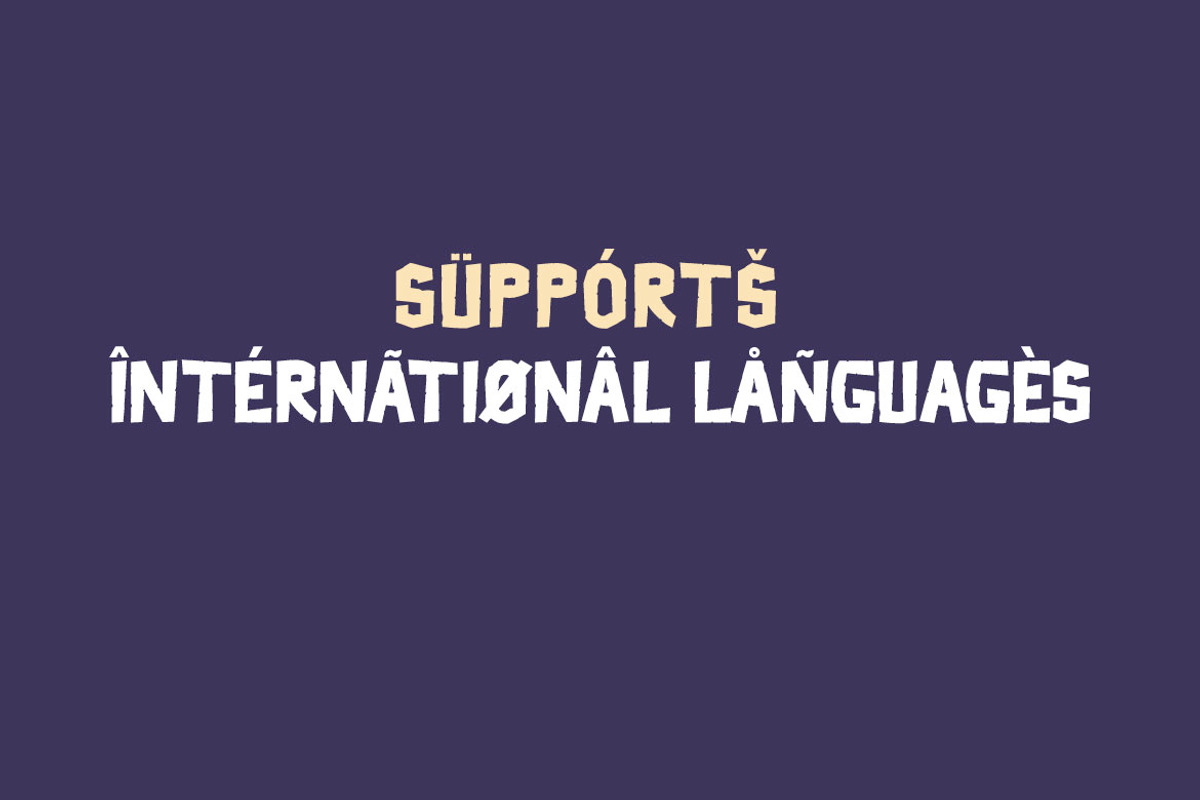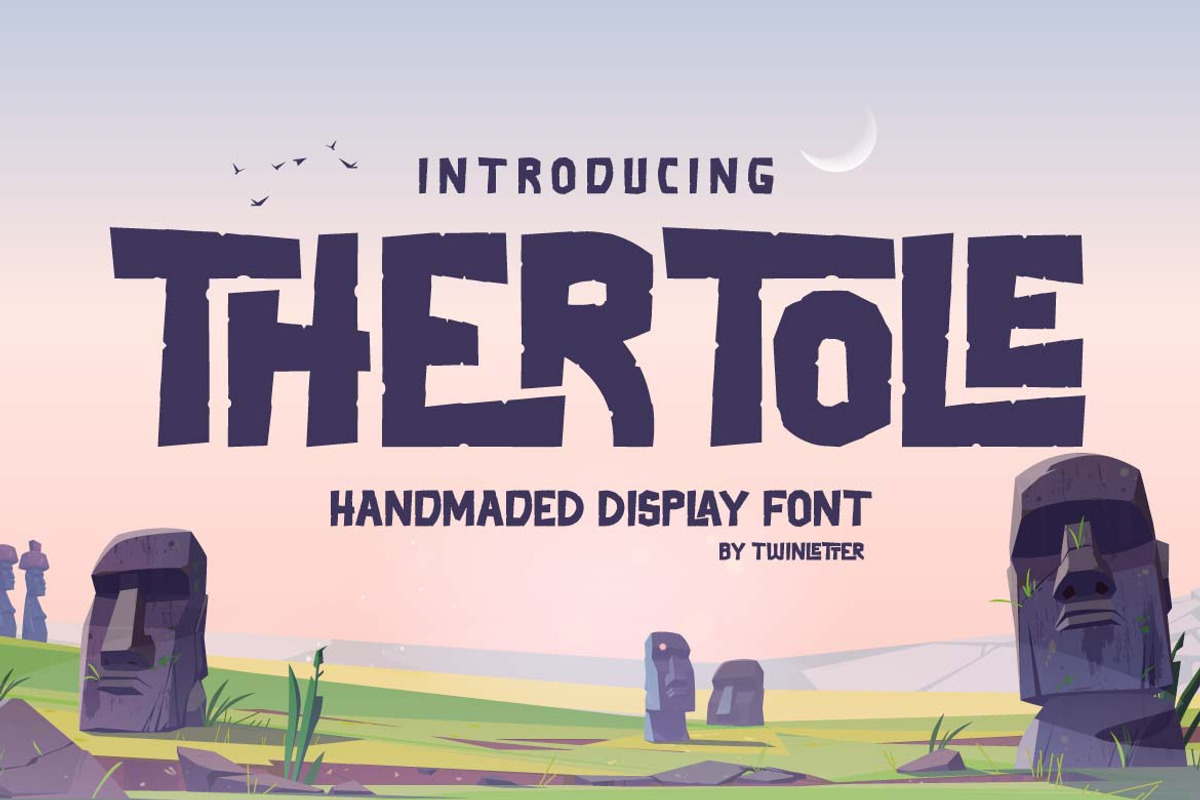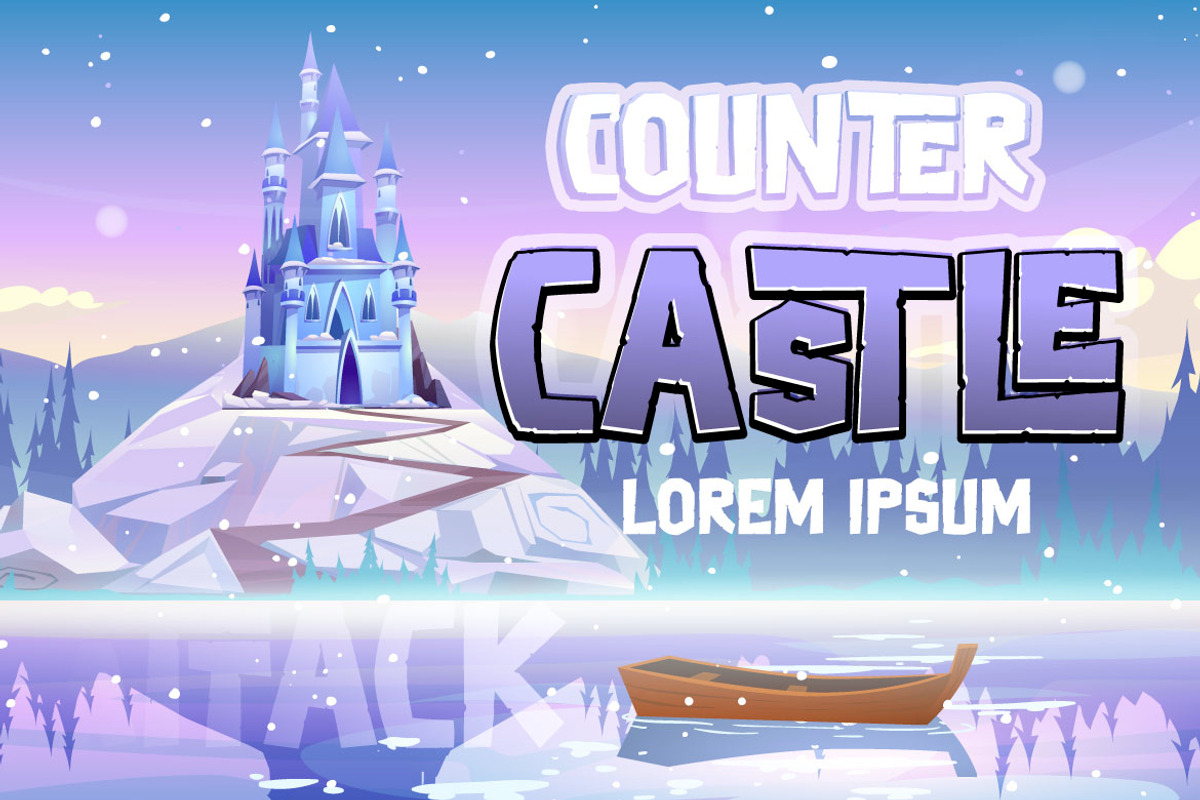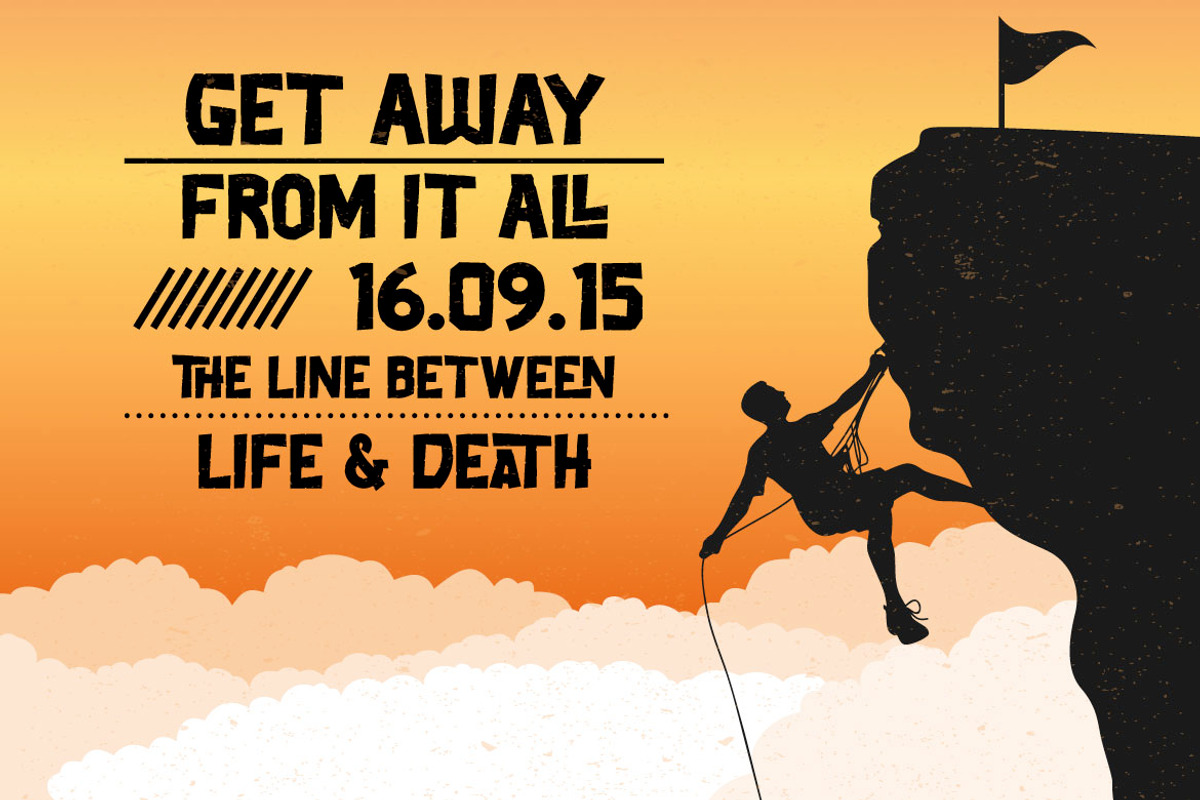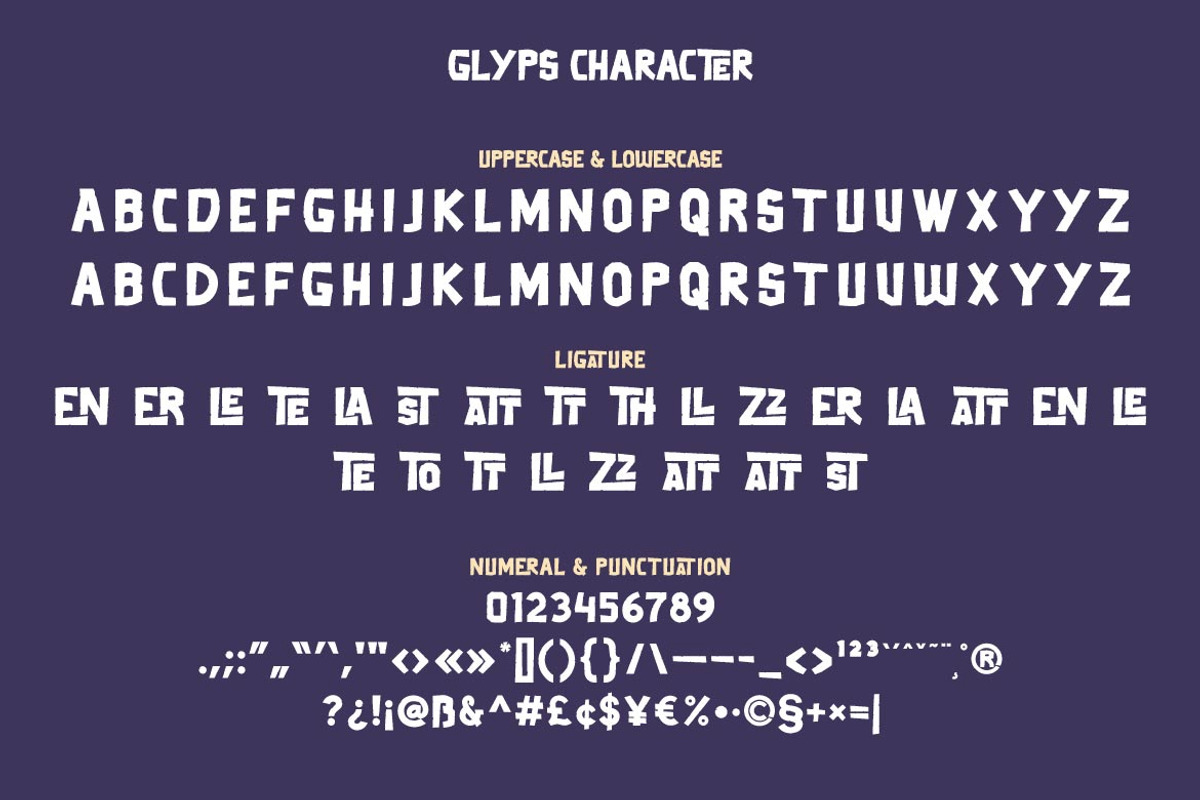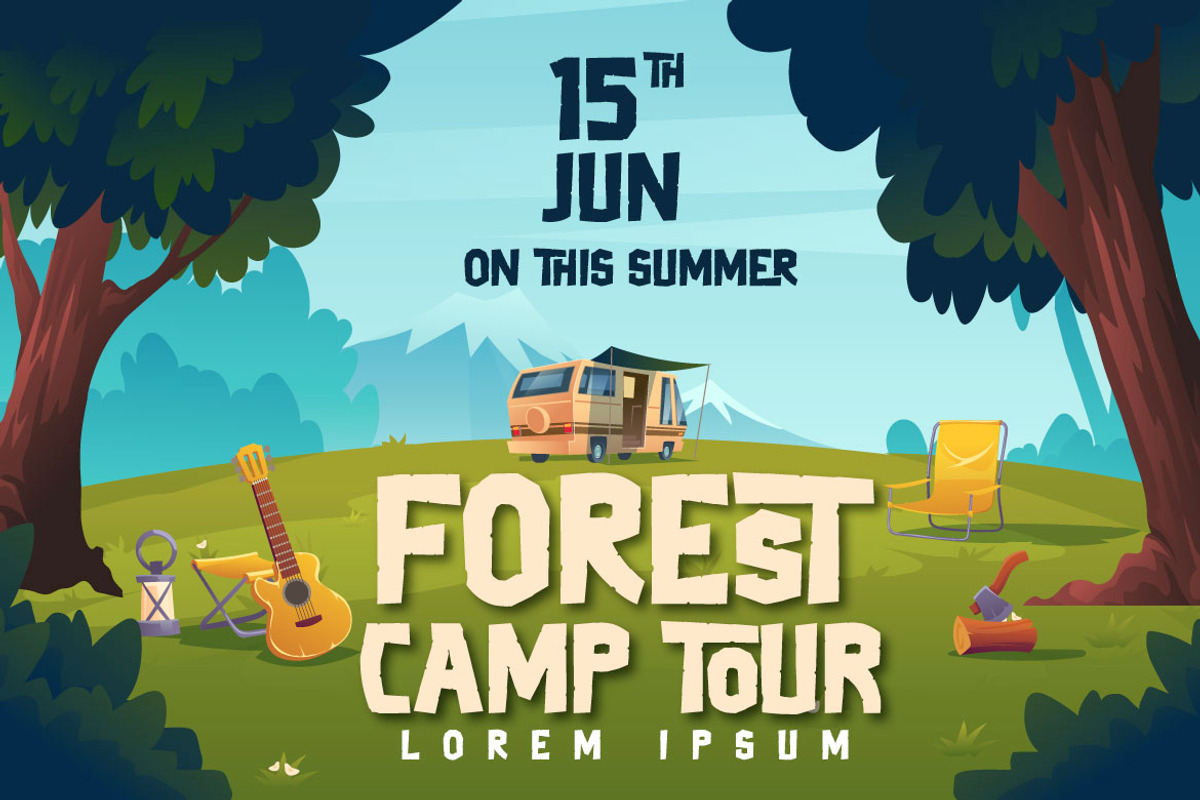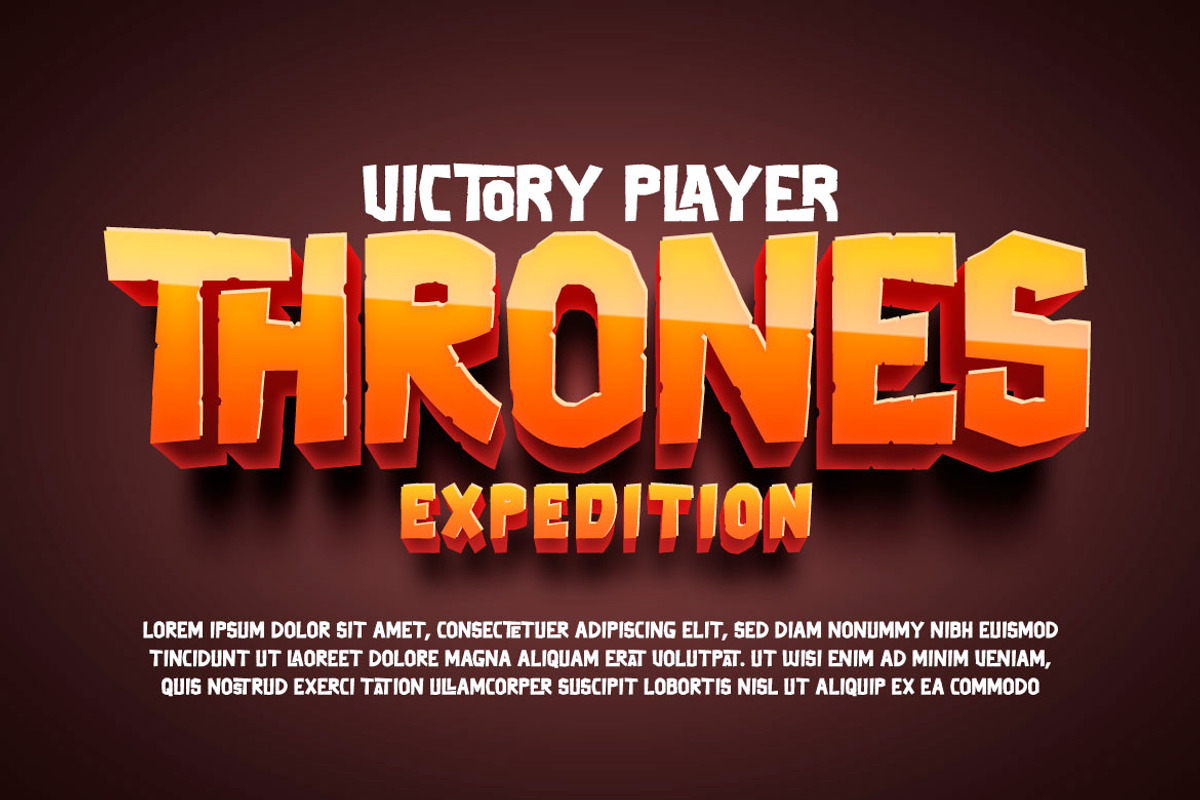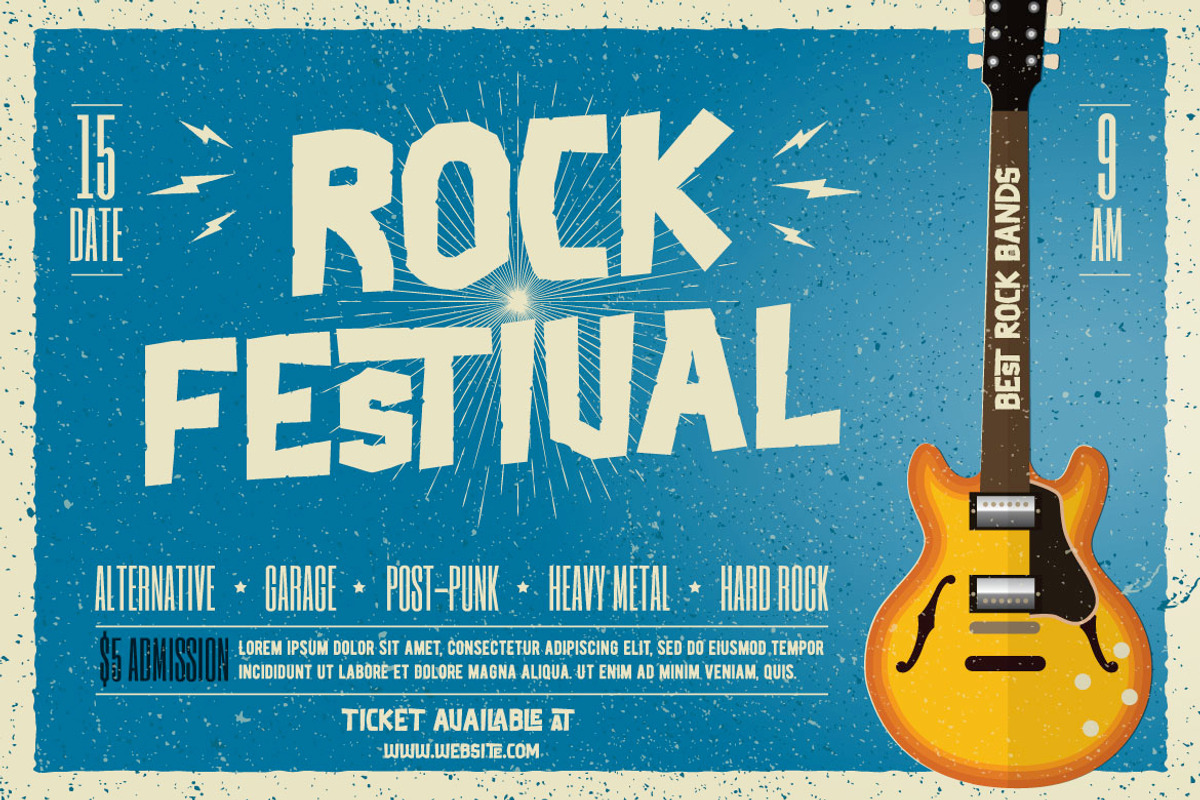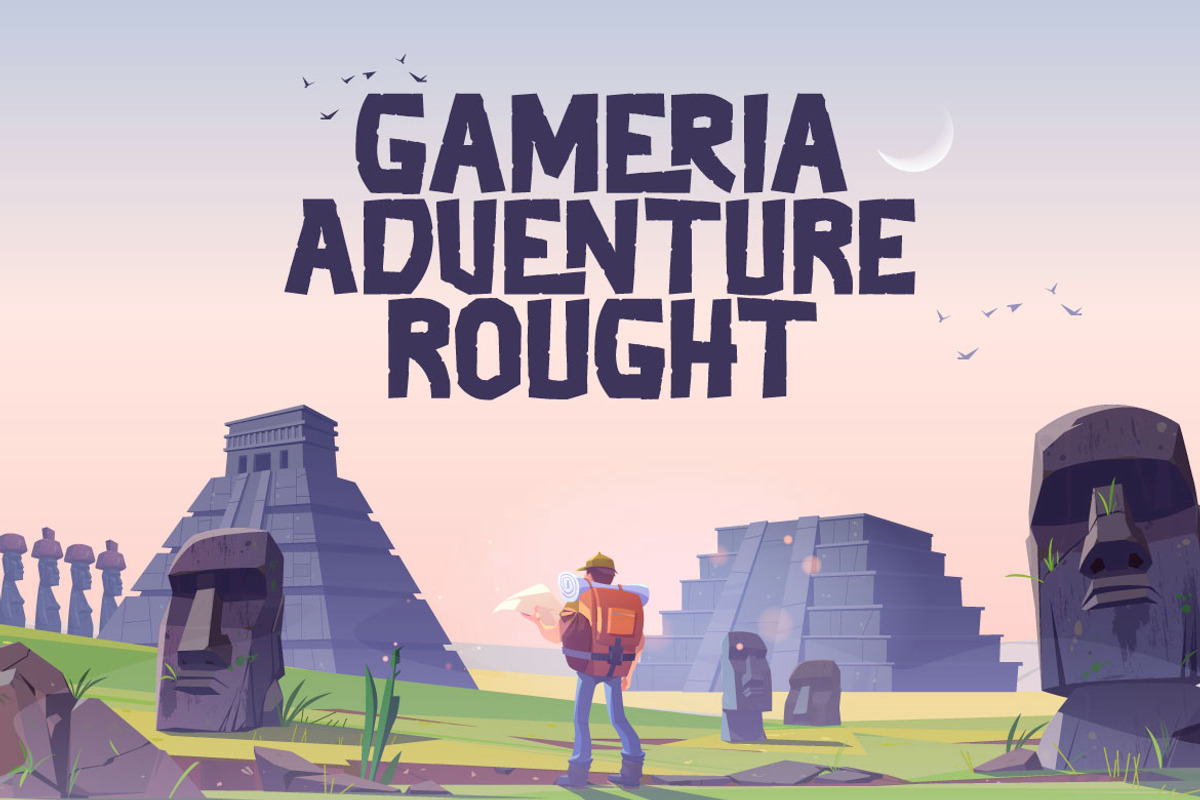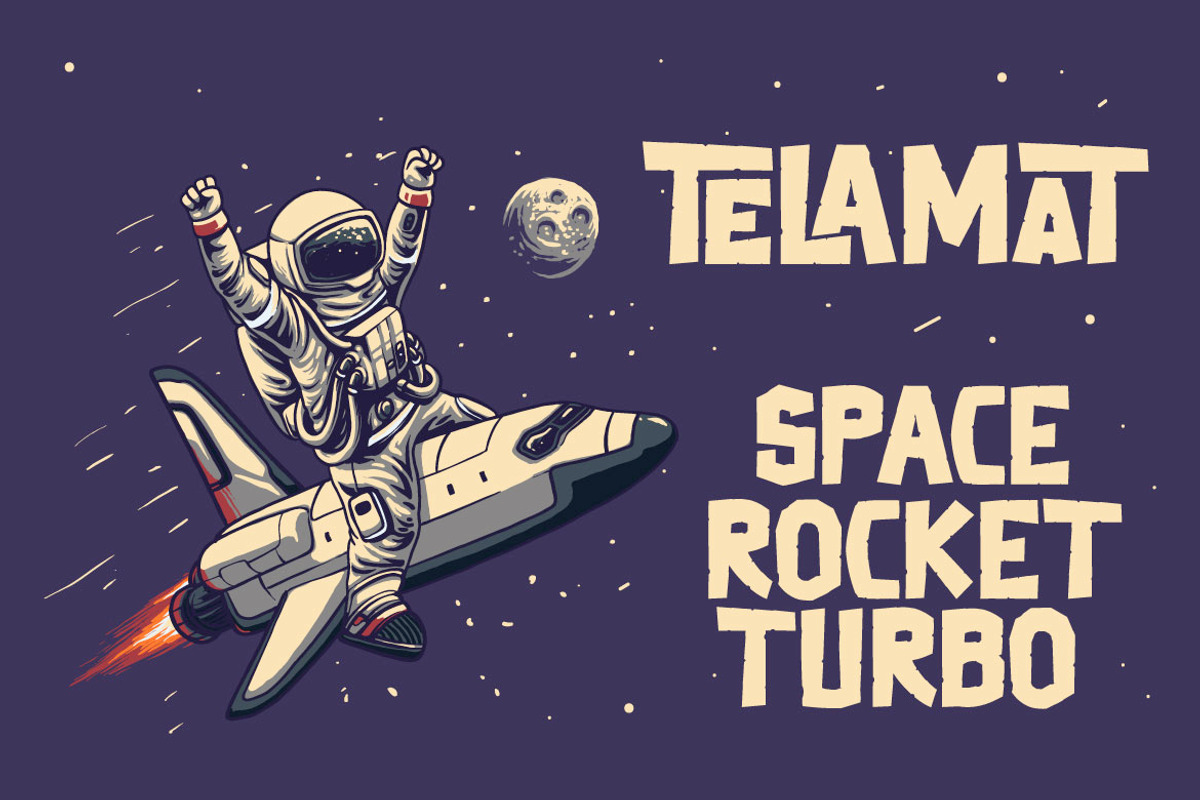
Thertole Unique Display Font
Thertole is a dramatic display font with a strong background.
Because of its rock-inspired design, this typeface is dashing and bold for individuals who dare to be distinctive.
If you use this font for a variety of outdoor events, you will get an exquisite and unique look.
Standard ligatures, character choices, and international language support are also included in this typeface.
This font is perfect for games, sporting events, branding, banners, posters, movie titles, book titles, quotes, and more.
of course, your various design projects will be perfect and extraordinary if you use this font because this font is equipped with a complimentary font family, both for titles and subtitles and sentence text, start using our fonts for your amazing projects.